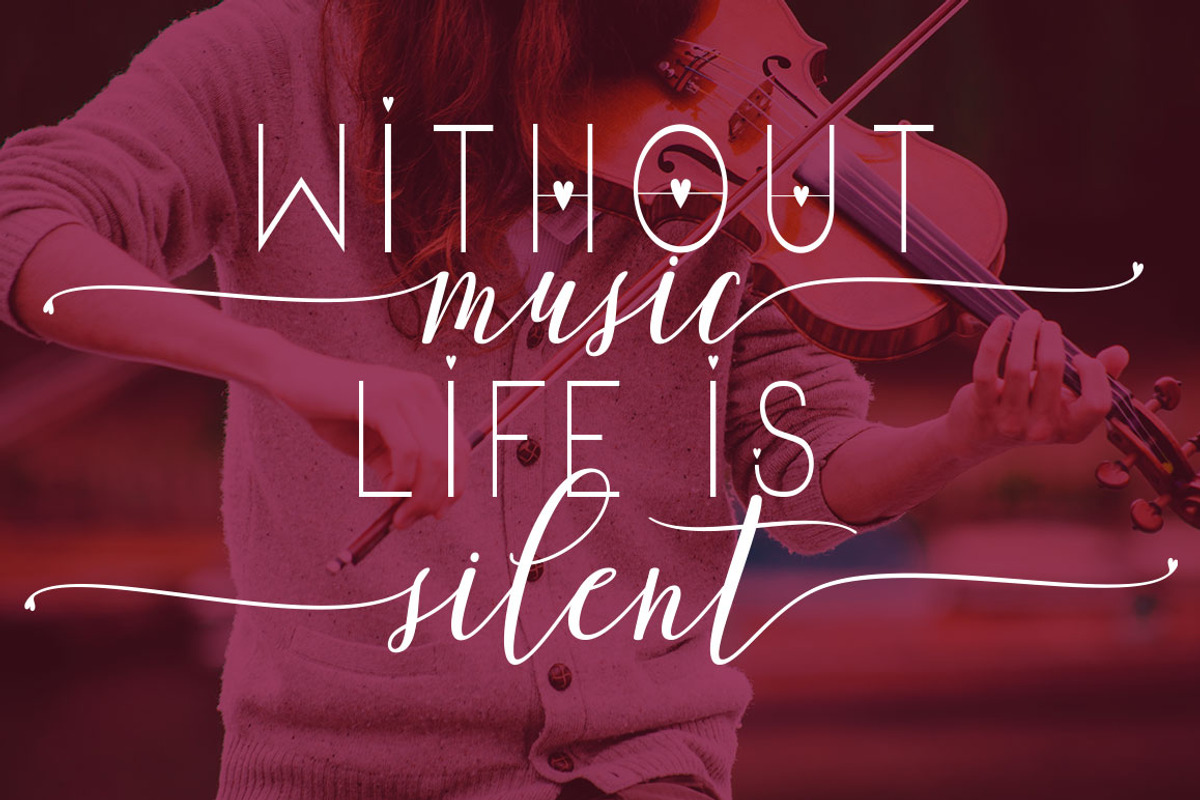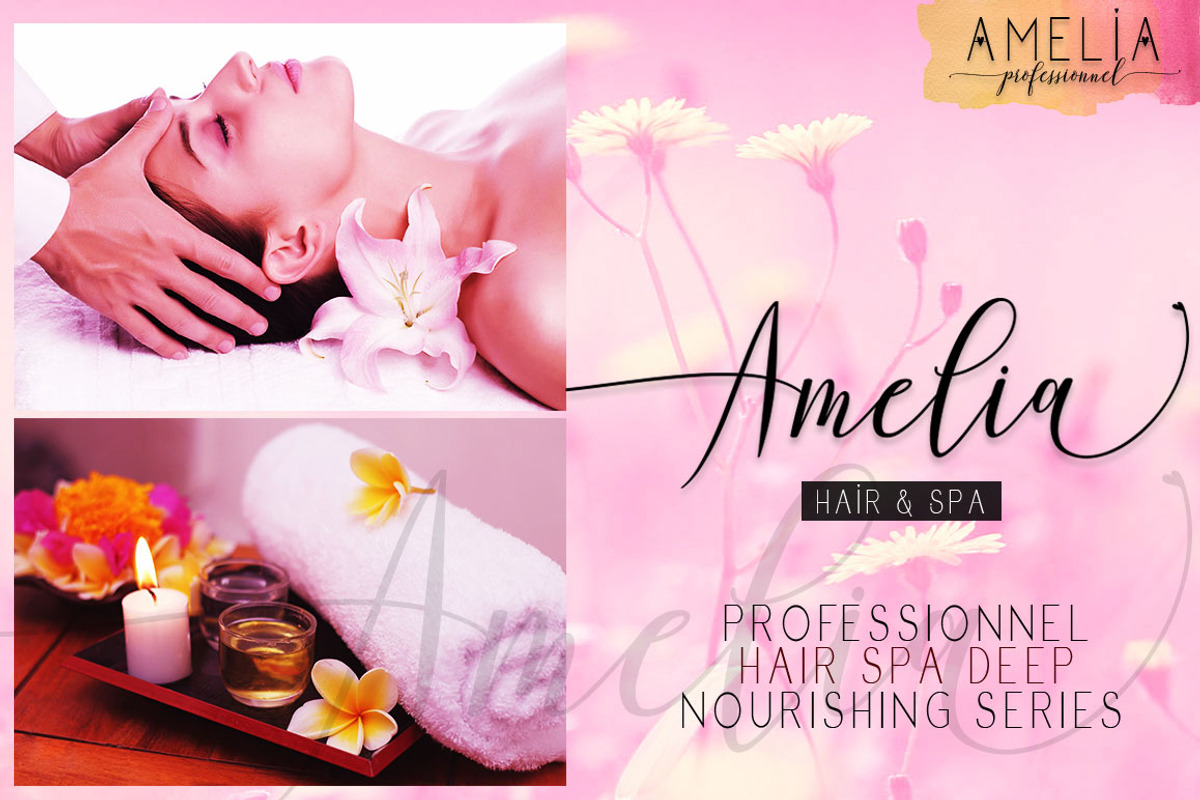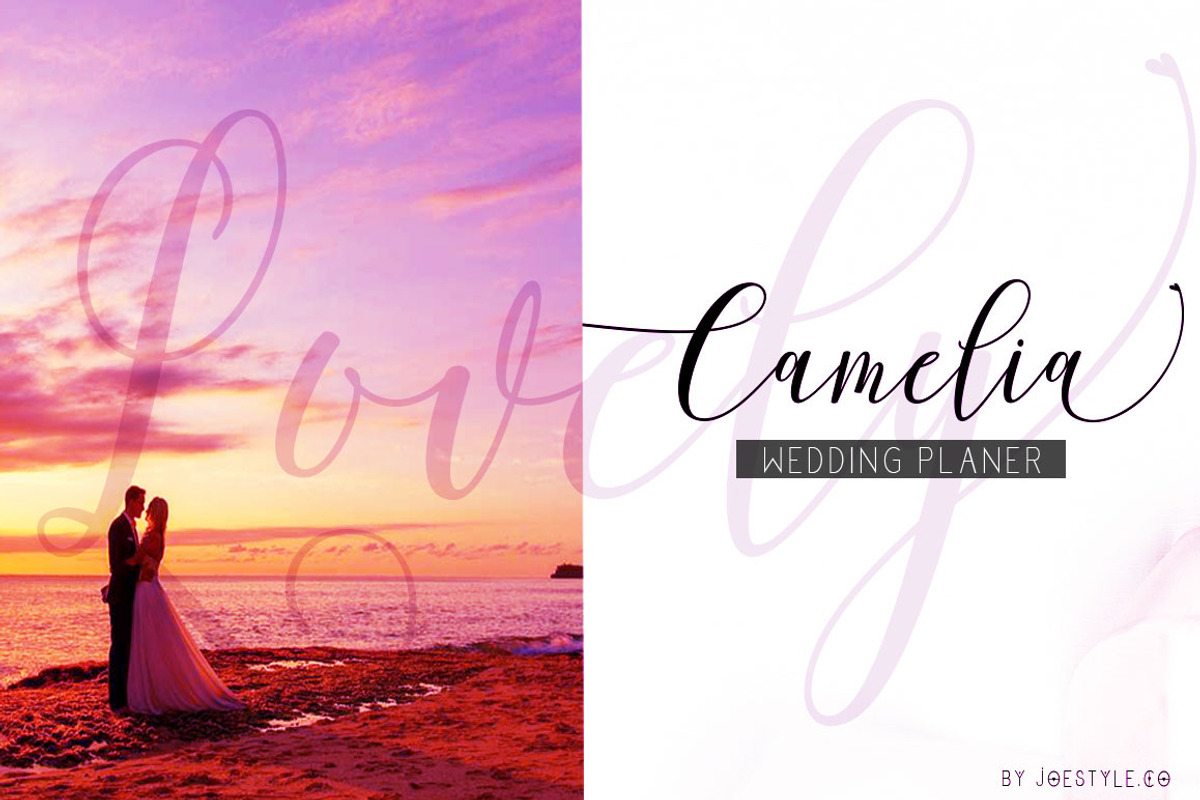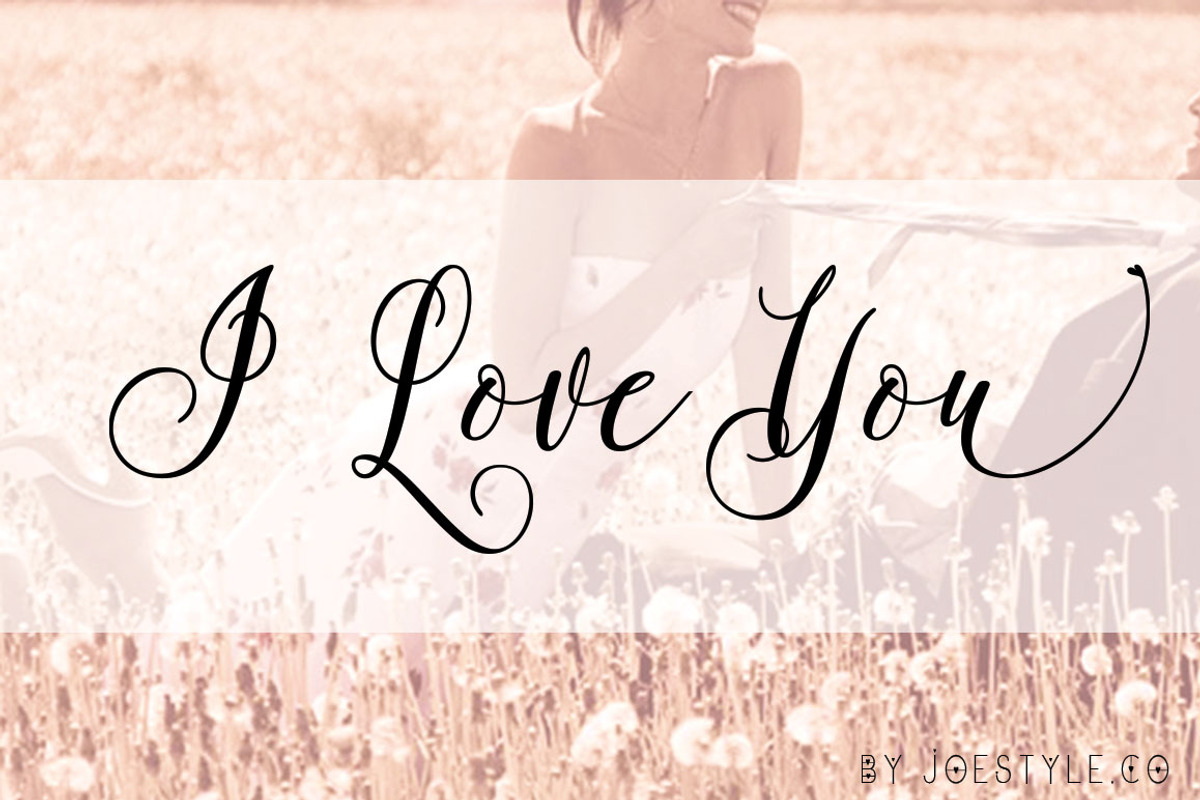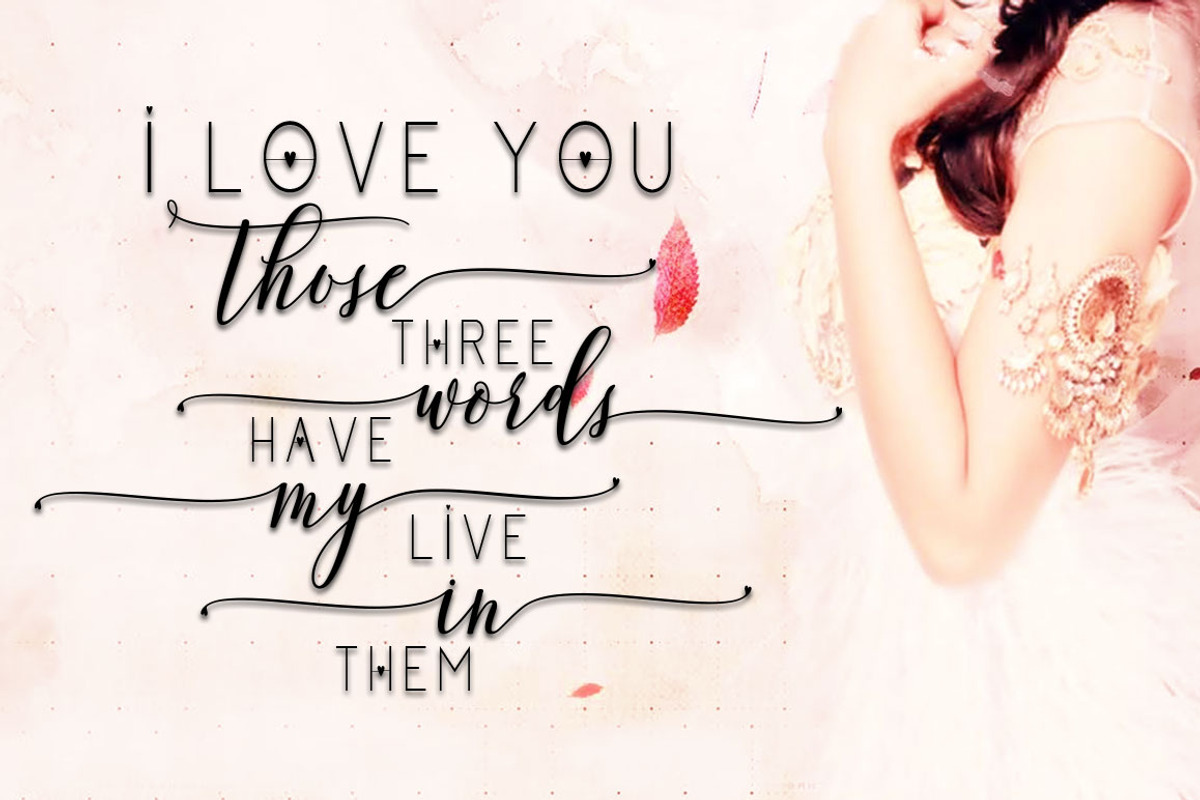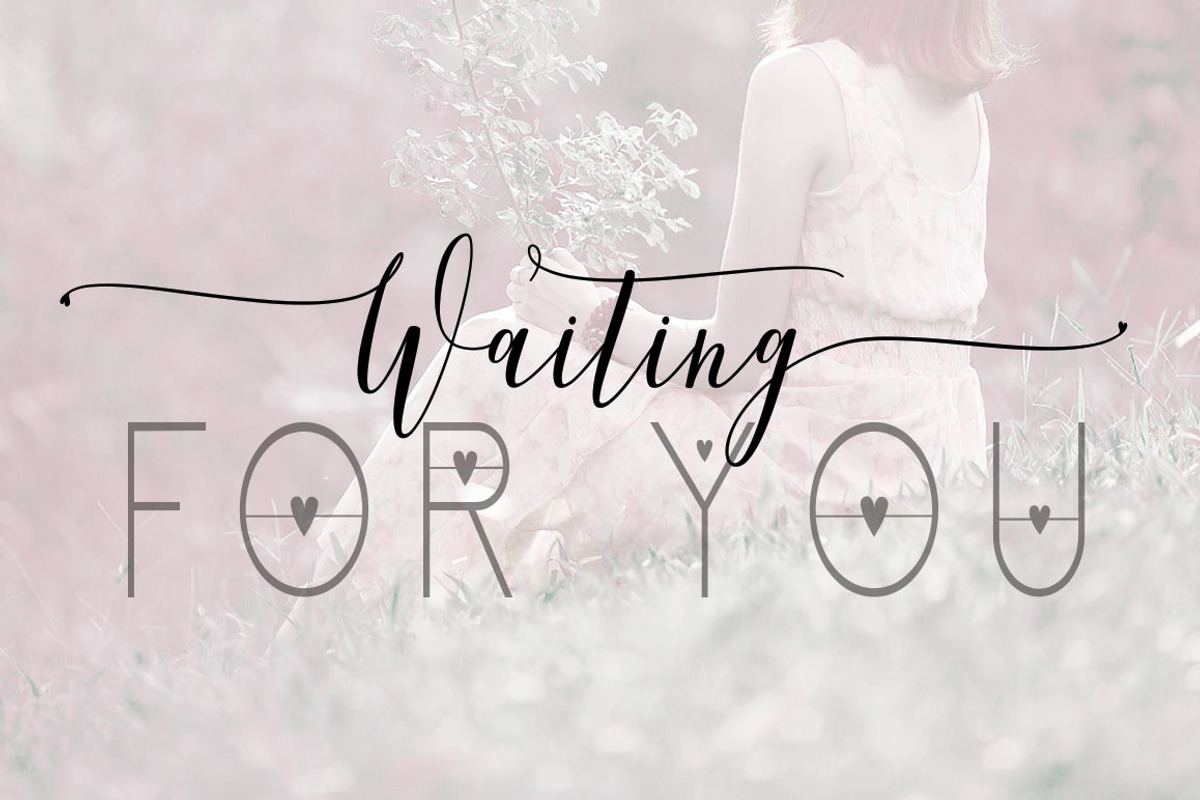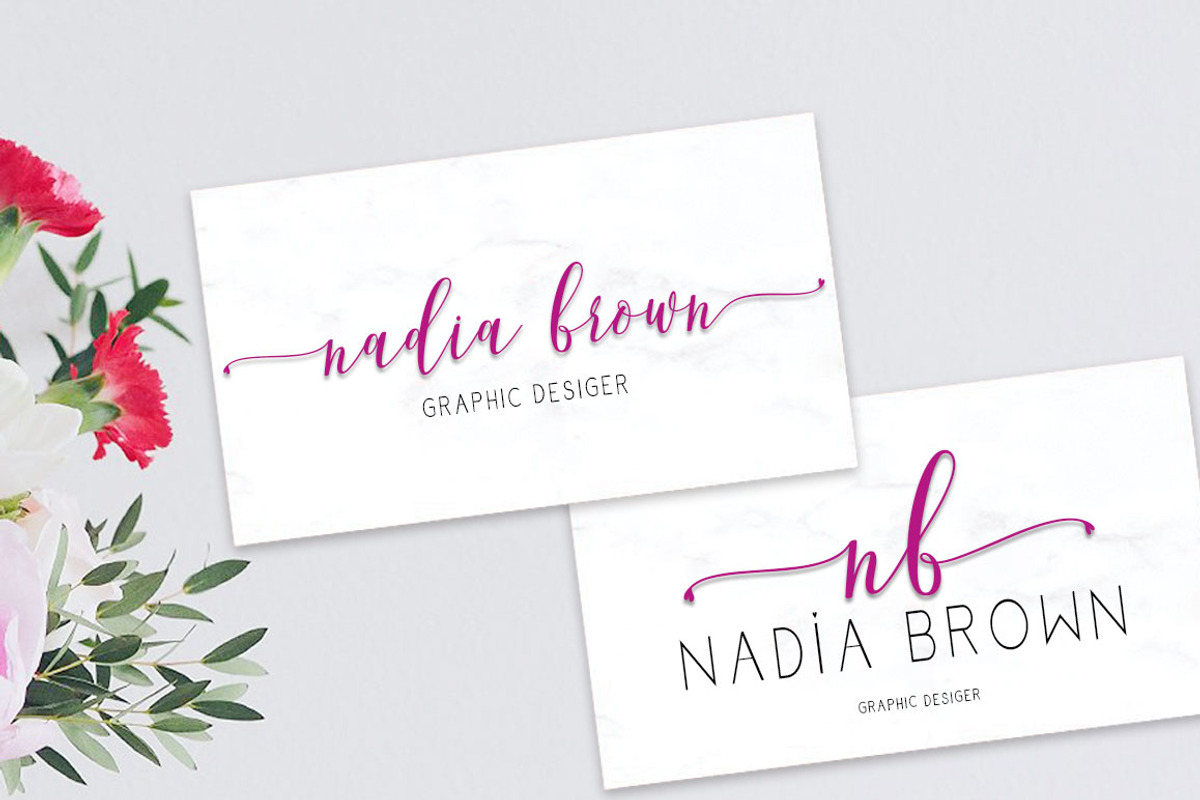
Adova zombia Font Duo
INTRODUCING the Adova Zombia Font Duo, a pair of sophisticated and elegant scripts and sans.
Adova Zombia offers beautiful typography harmony for a variety of project design, including logo and branding, wedding design, social media posts, advertising, product design etc.
1. Adova zombia Sans include lowercase letters and uppercase letters, numbers, punctuation marks and other languages.
2. Adova zombia includes lowercase and uppercase letters, numbers, punctuation marks, other languages, standard ligatures, stylistic alternates, swash and stylistic sets 01 - 09.
Adova zombia Font Duo by Jhoel Design fits naturally into Branding, posters, packaging, typography.